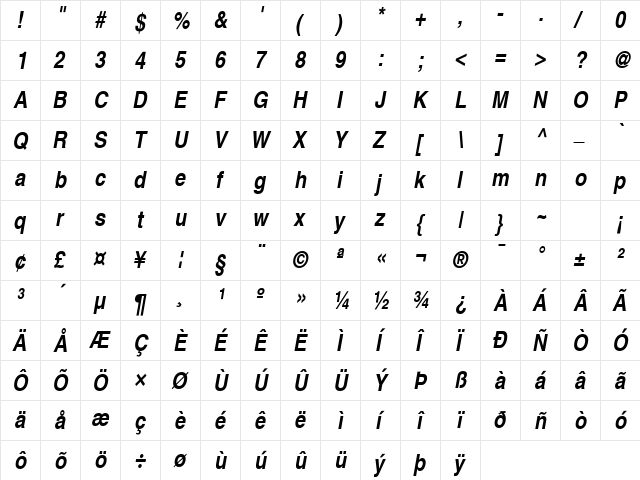
Context Extra Condensed SSi Bold Extra Condensed Italic Font Preview
Design Context for Context Extra Condensed SSi Typeface
Context Extra Condensed SSi takes a measured approach to typography — its balanced proportions and neutral character make it a reliable workhorse for both digital and print work. The dynamic lean of this cut emphasises speed and emphasis in any layout. Its bold stroke weight gives it real presence on the page. Its narrow stance lets it pack a punch even in space-constrained designs.
Pro Tip: Use Context Extra Condensed SSi for emphasis, pull quotes, and subheadings where its slanted energy can add rhythm to the layout.